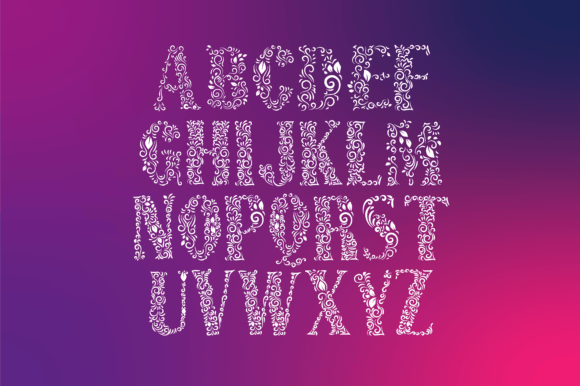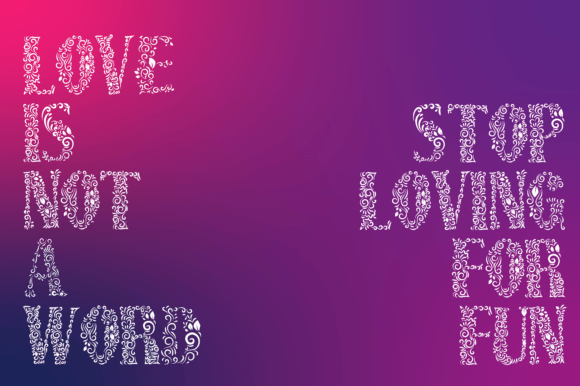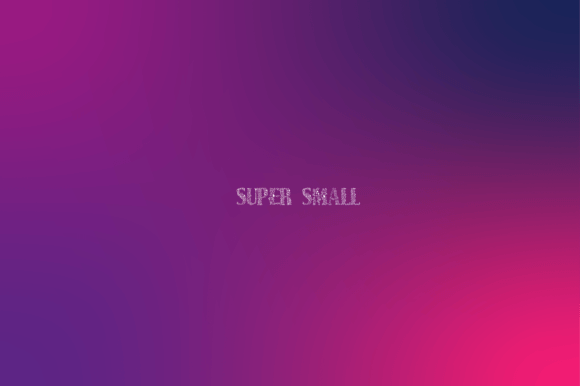
Elevate Your Designs with Florida Font: A Simple yet Stunning Decorative Font
Are you tired of using the same old fonts for your projects? Do you want to add a touch of modernity and beauty to your designs? Look no further than Florida Font, a simple yet decorative font that is sure to take your projects to the next level. In this article, we’ll explore the features and benefits of Florida Font, and why it’s a must-have for designers and crafters.
What is Florida Font?
Florida Font is a beautifully designed font that is perfect for adding a touch of elegance and sophistication to your projects. Its simple yet decorative design makes it versatile and easy to use, making it suitable for a wide range of applications, from crafting and scrapbooking to graphic design and digital art.
Key Features of Florida Font
• Simple yet decorative: Florida Font has a clean and simple design that is both easy to read and visually appealing.
• Beautiful and attractive: The font’s elegant lines and curves make it perfect for adding a touch of sophistication to your projects.
• Versatile: Florida Font can be used for a wide range of applications, from crafting and scrapbooking to graphic design and digital art.
Why Choose Florida Font?
So why choose Florida Font over other fonts? Here are just a few reasons:
• Unique and eye-catching: Florida Font is a unique and eye-catching font that is sure to make your projects stand out.
• High-quality design: The font is beautifully designed with elegant lines and curves, making it perfect for adding a touch of sophistication to your projects.
• Easy to read: Despite its decorative design, Florida Font is easy to read, making it perfect for use in a wide range of applications.
Make Your Gifts Stunning with Florida Font
If you’re a crafter or scrapbooker, Florida Font is a great way to add a personal touch to your gifts. Here are a few ideas:
• Personalized cards: Use Florida Font to create personalized cards for special occasions.
• Custom gifts: Use the font to create custom gifts, such as monogrammed towels or personalized mugs.
• Scrapbooking: Use Florida Font to add a touch of elegance to your scrapbooking projects.
In conclusion, Florida Font is a simple yet stunning decorative font that is perfect for designers and crafters. Its beautiful and attractive design makes it versatile and easy to use, making it suitable for a wide range of applications. Whether you want to add a touch of elegance to your designs or make your gifts stunning, Florida Font is a great choice. So why wait? Get Florida Font today and take your projects to the next level of beauty and modernity!